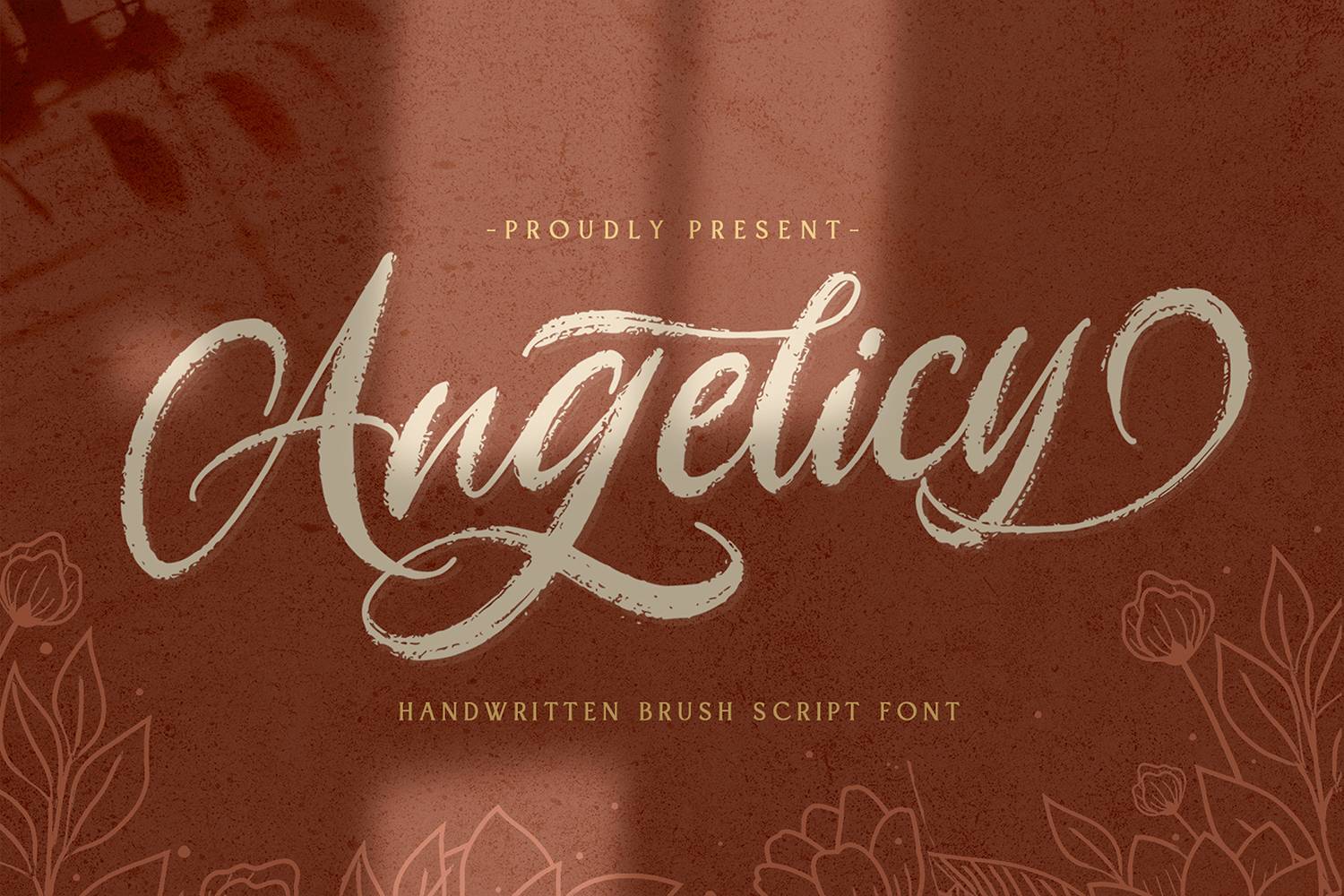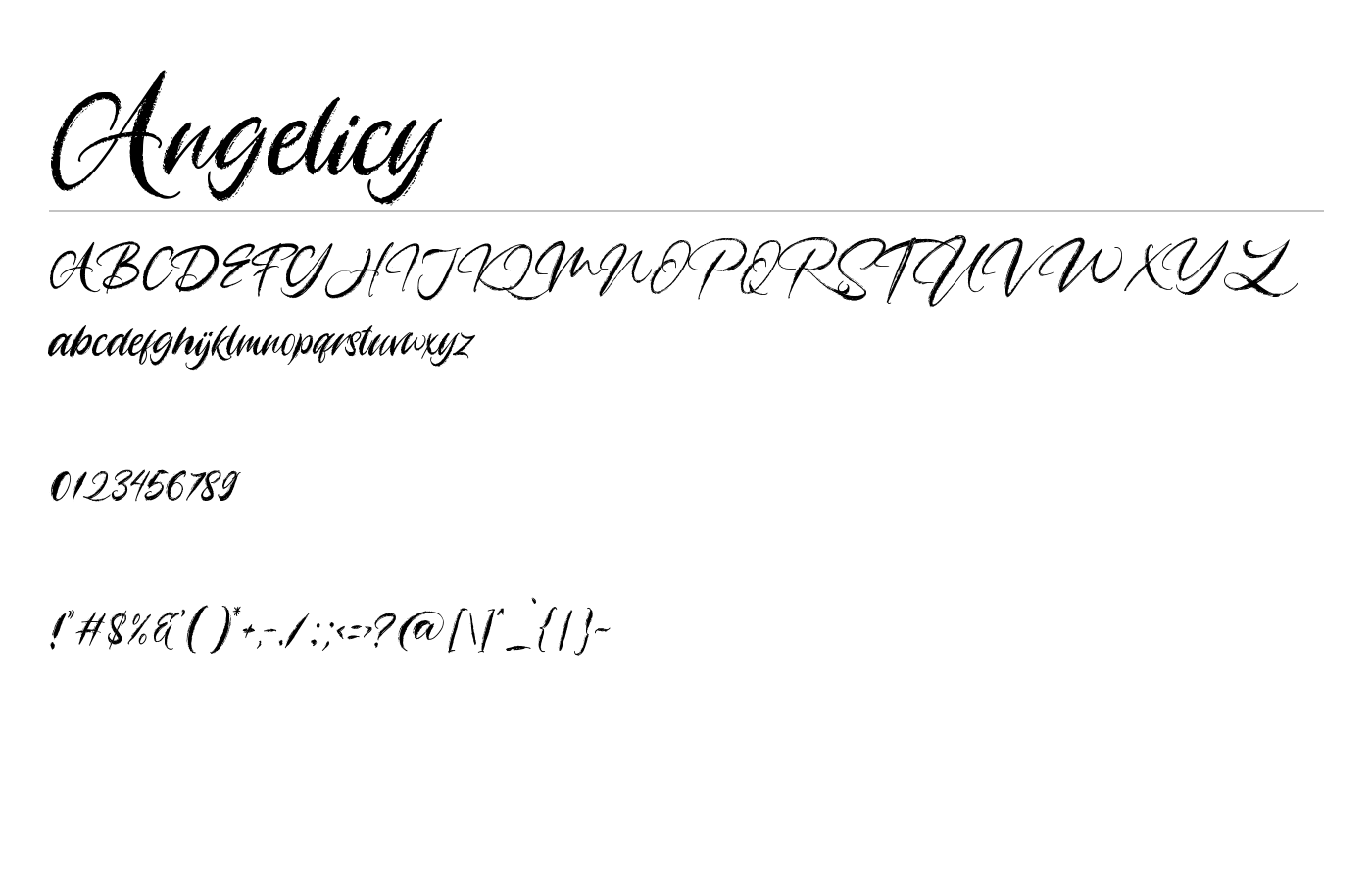
Angelicy is an elegant script font with a handwritten, brush-style look that combines flowing, fluid strokes with a textured, slightly rough finish. It feels artistic and personal, perfect for adding a romantic or creative touch to branding, invitations, and decorative design projects where a sophisticated yet approachable script is desired.
Angelicy Font
About Angelicy Font
| Font family | Angelicy Font |